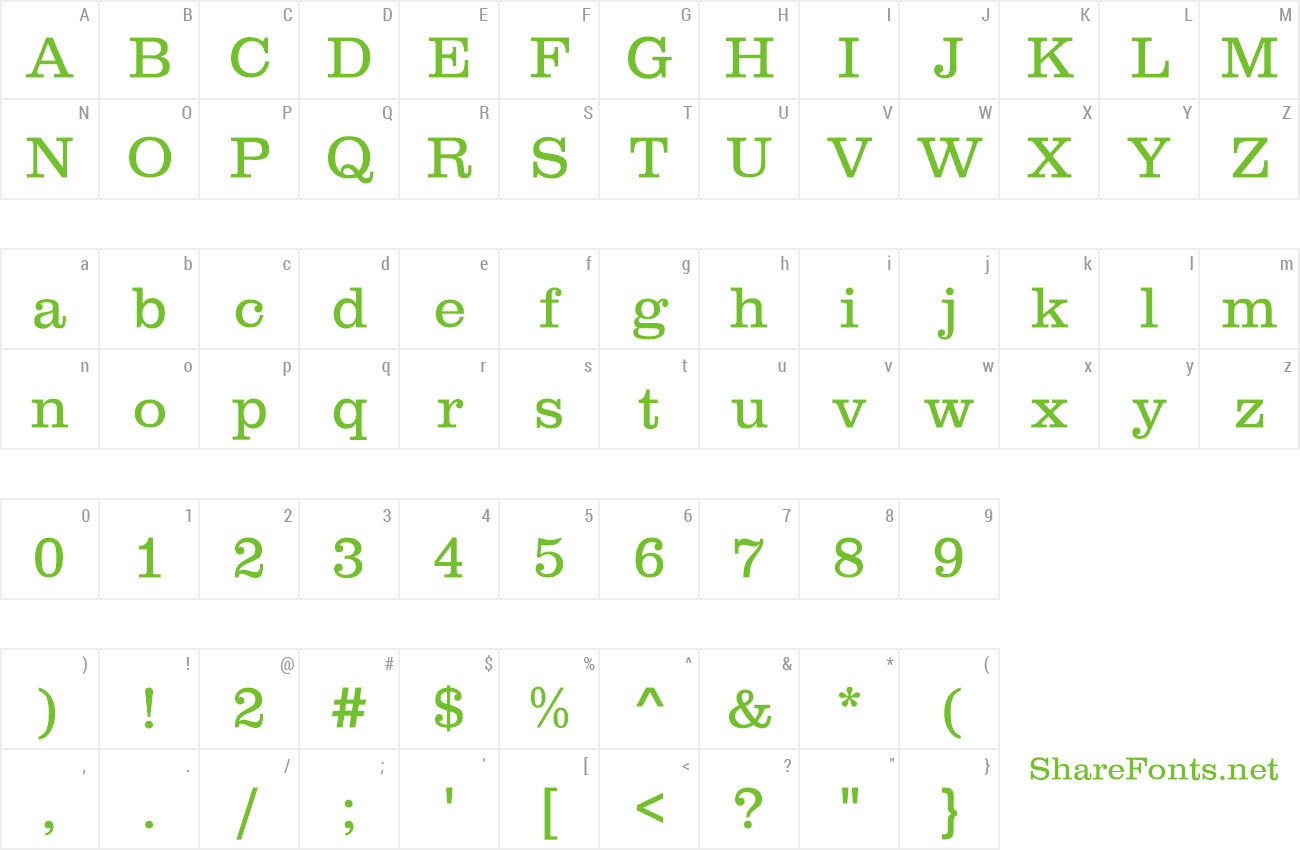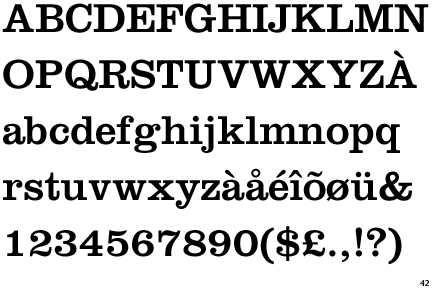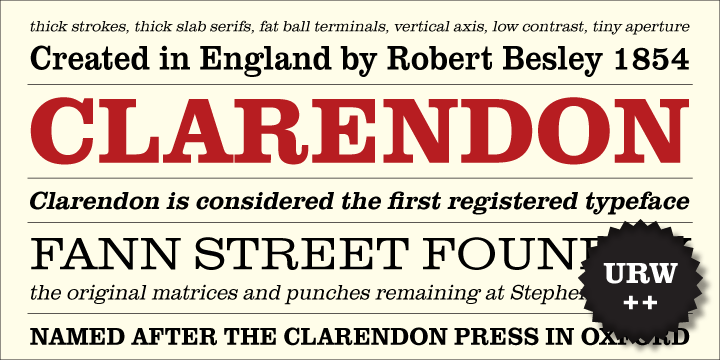
This typeface was created with larger text displays in mind. Making the web more beautiful, fast, and open through great typography
Clarendon font has a bold and classic texture style that belongs to the slab serif font family.
This typeface gives bold and vintage vibes to your designs. The original clarendon design is credited to robert besley, a lover inside the foundry, and was initially engraved by. Font details $ free > personal use.
Family packages tech specs licensing. Similar free fonts for clarendon wide sc. The original typeface was credited to robert besley, and the first engravings were made by punchcutter benjamin fox.
(or thorowgood and besley) of london, a letter foundry often known as the fann street foundry. Try these free alternatives to clarendon. The design of this font style is inspired by the typography that was used in the 19 th century.
Enter custom sample text to change the font previews below Clarendon wide canada type 2010. Regular, medium, bold, with small caps and oldstyle figures counterparts, as well as stencil and sketch versions of the regular and the bold.
Clarendon wide font pairings about description this is the wide display companion to the clarendon text family. (some sources directed this to thorowgood and besley) of london. How clarendon came to be.
See the font with your own custom text. If you want to create professional printout, you should consider a commercial font. It was apparently named after the clarendon press in oxford.
Libre clarendon wide 176 bold is free for personal use only. Clarendon wide was designed by patrick griffin and published by canada type. By overwhelming popular demand, this is the wide display companion to canada type’s clarendon text family.
What is the clarendon wide font? Similar free fonts for clarendon wide sc. The typeface was published in 1845 after.
(or thorowgood and besley) of london, a letter foundry typically known as the fann avenue foundry. Check it for free with typograph. It comes in ten styles: